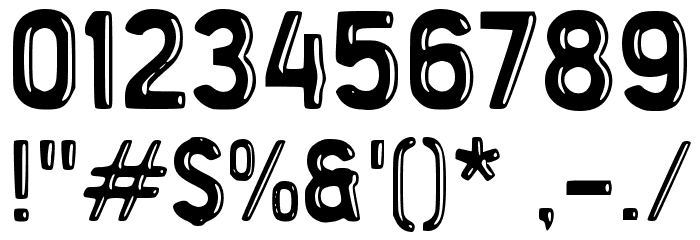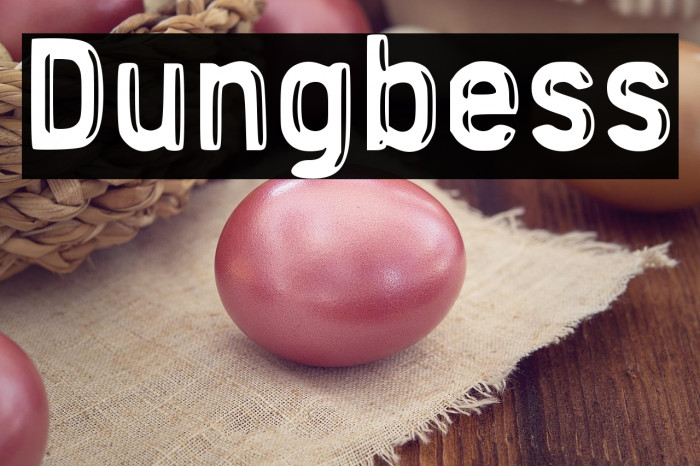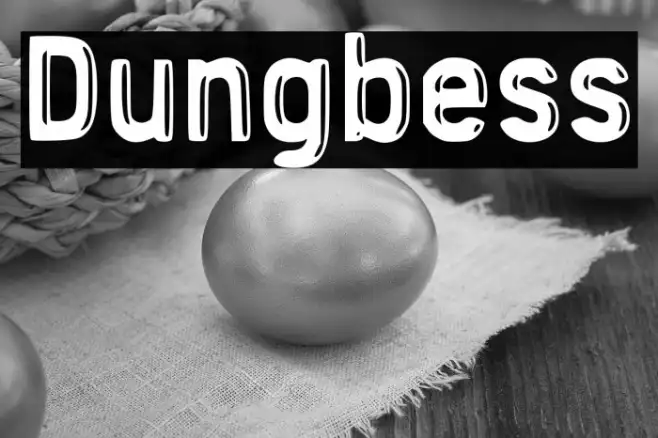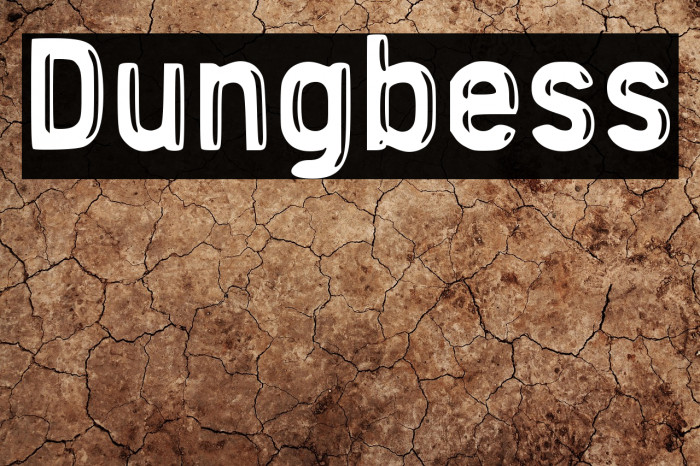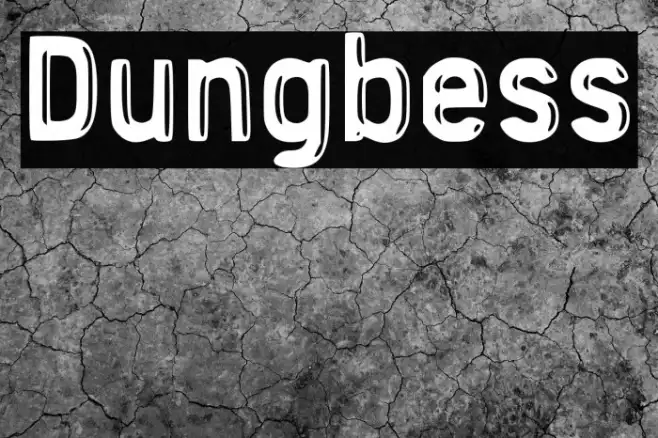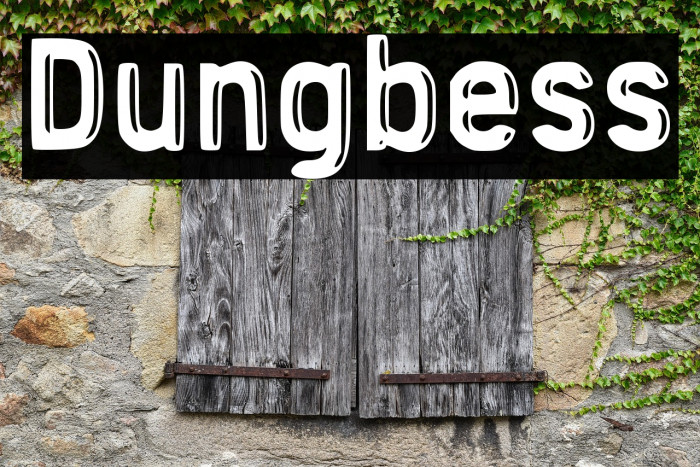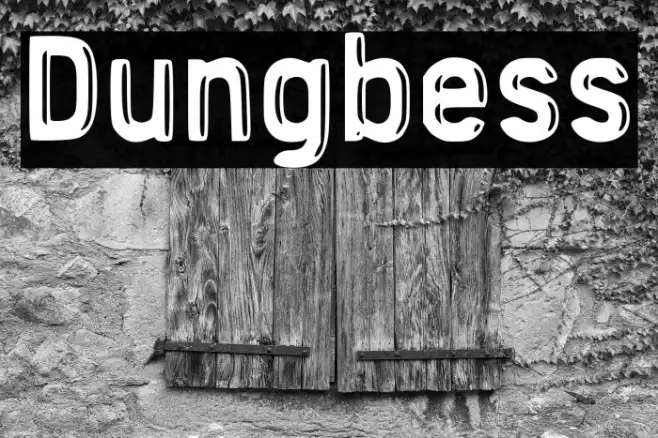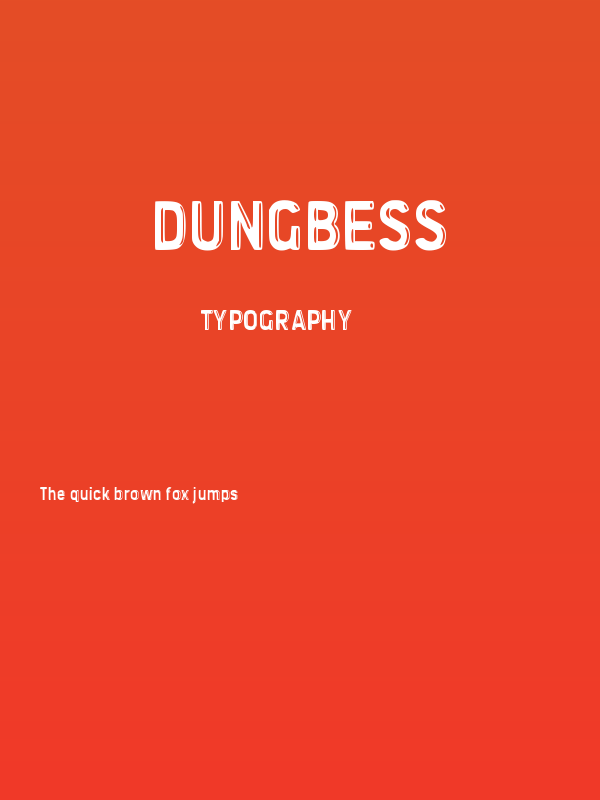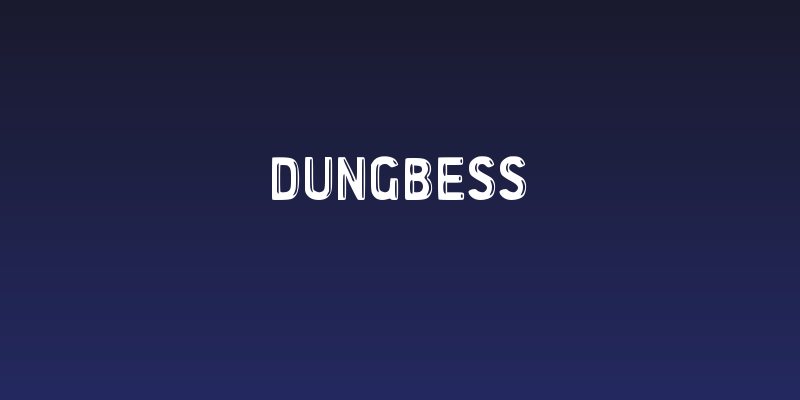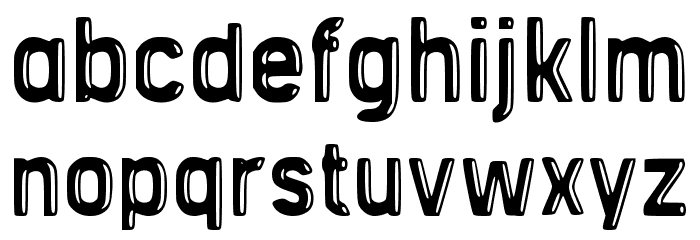
Dungbess Font
Dungbess Description
This font features a bold and playful design with a unique cut-out effect that adds depth and character to each letter. The uppercase and lowercase letters maintain a consistent style, with rounded edges and a slightly condensed form. The numbers and special characters follow the same aesthetic, ensuring a cohesive look across all text elements. The font's distinctive style makes it stand out, making it ideal for creative projects that require a touch of whimsy and boldness.
| Overall Style | Playful, Modern |
| Proposed Projects | Ideal for posters, children's books, playful branding, and creative advertising. |